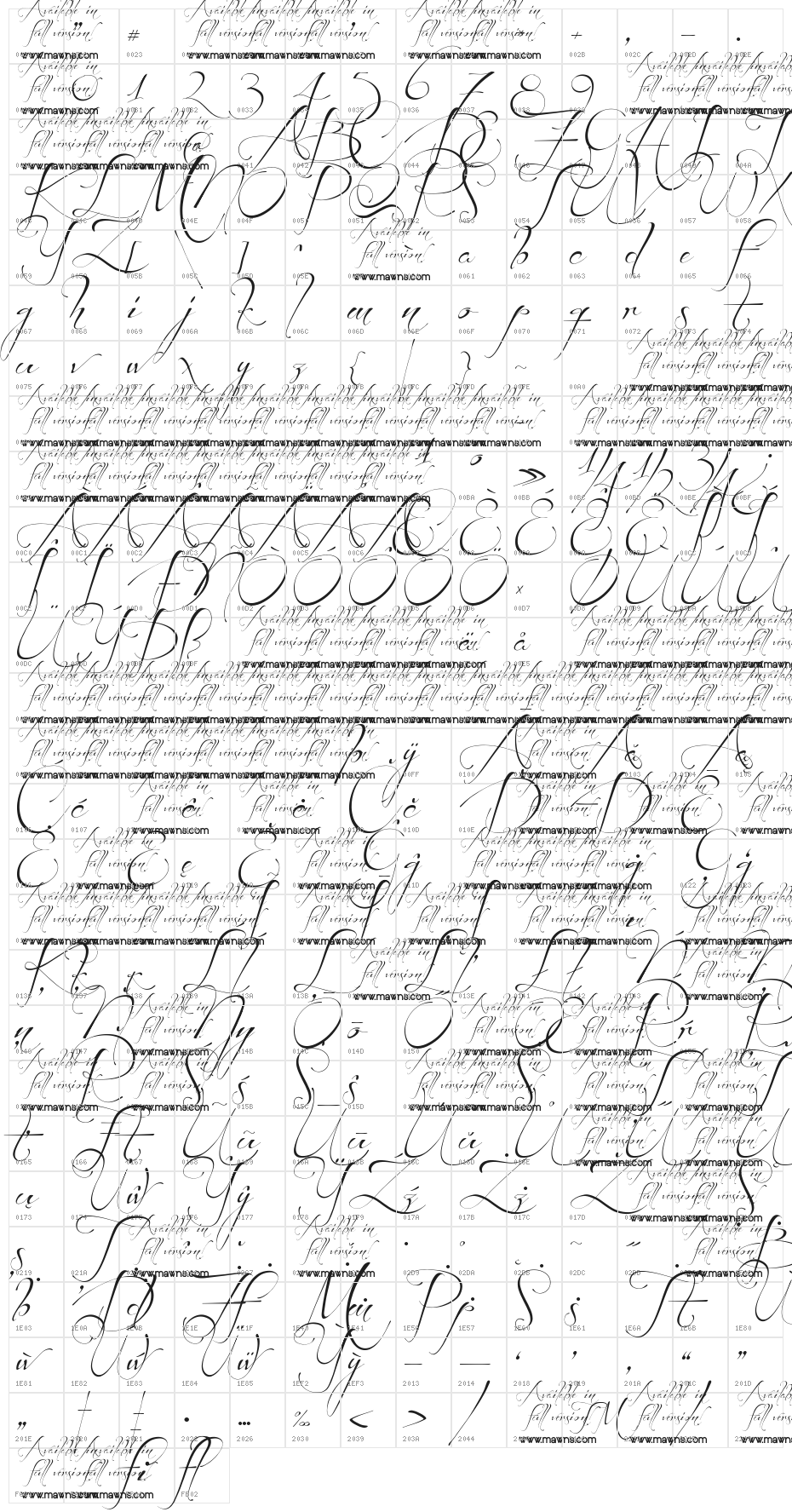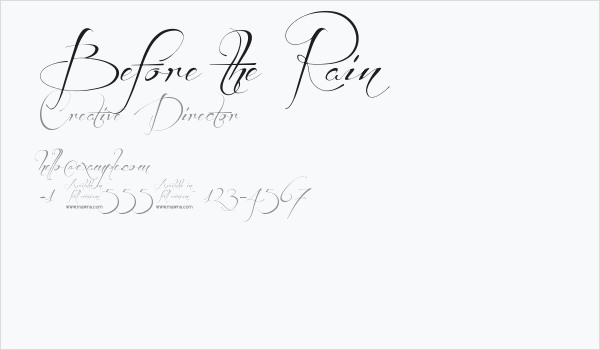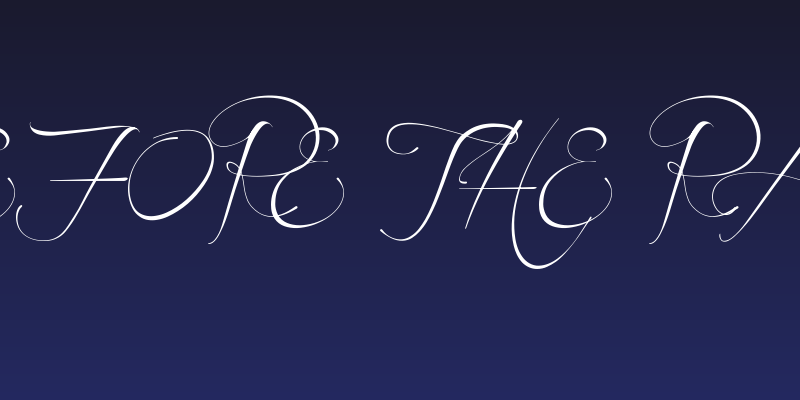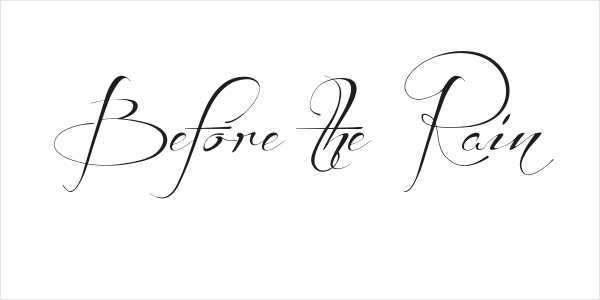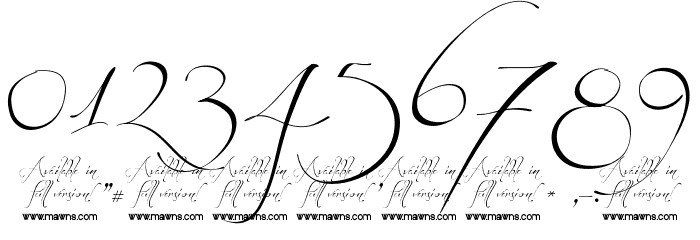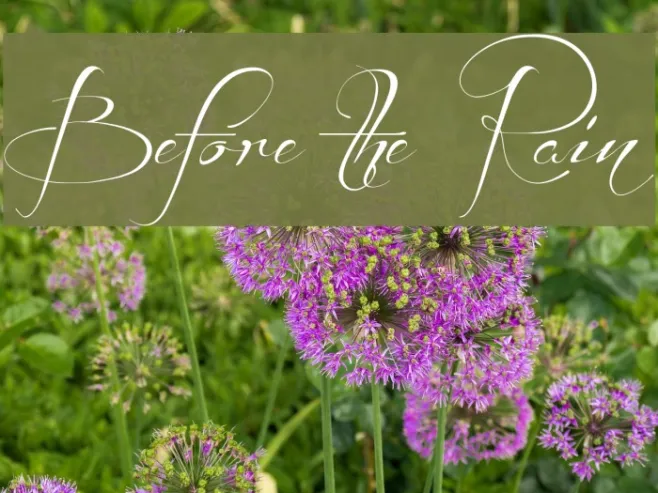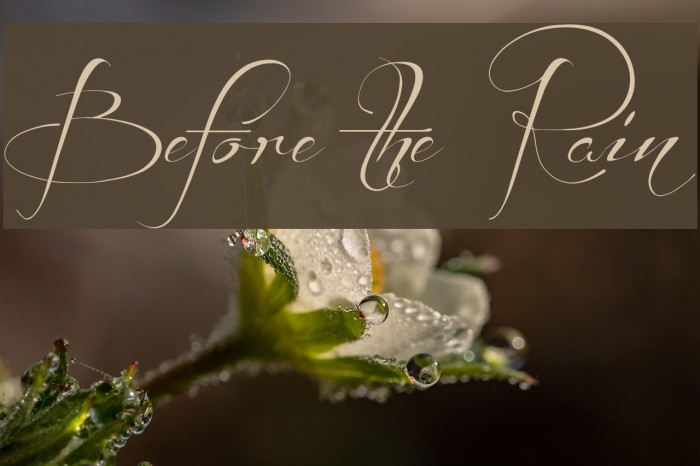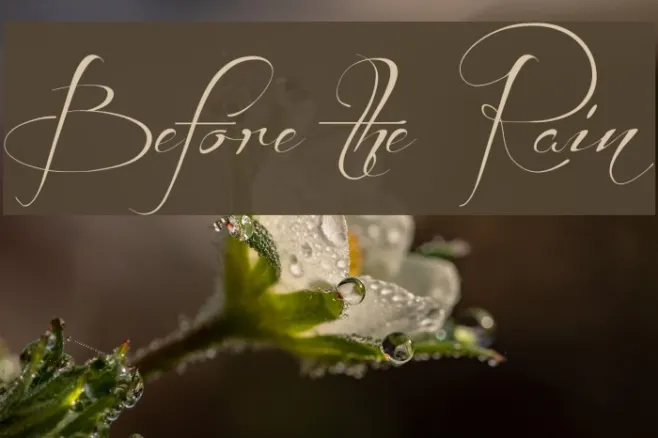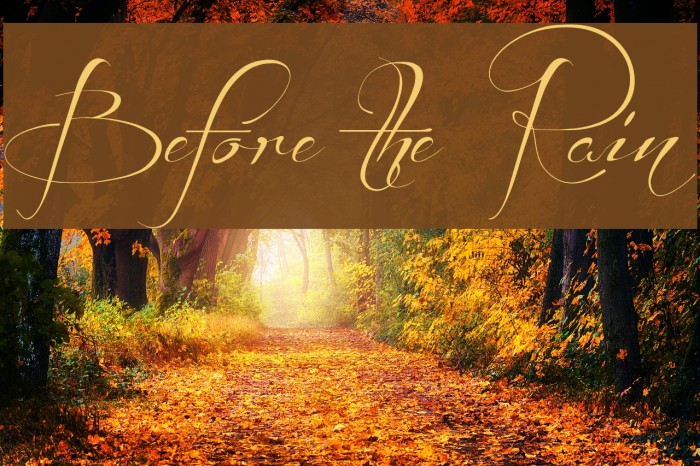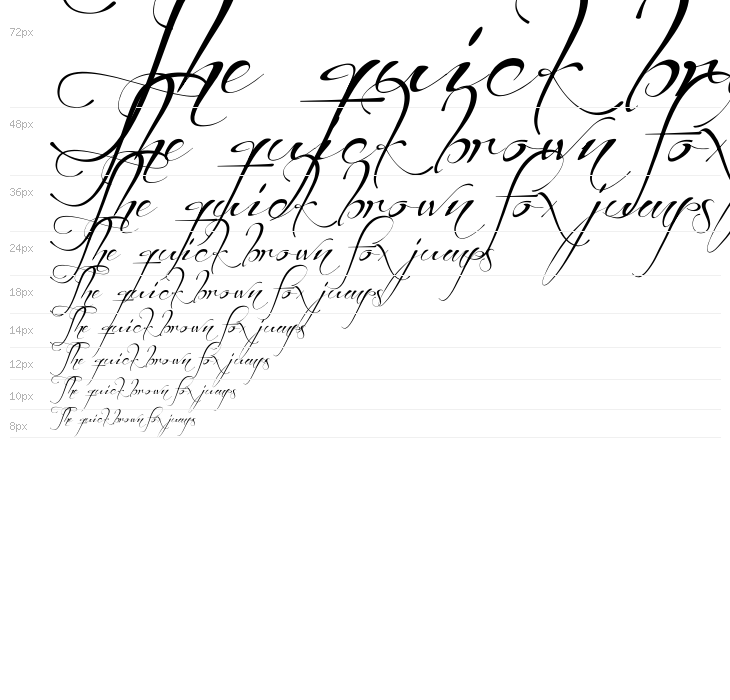
Before the Rain Font
Before the Rain Description
This elegant script font features a flowing, cursive style with delicate, sweeping strokes that convey a sense of grace and sophistication. The uppercase letters are characterized by their tall, slender forms and intricate loops, while the lowercase letters maintain a consistent fluidity, enhancing the font's overall harmony. The numerals are designed with a similar elegance, featuring gentle curves and a refined appearance. Special characters are seamlessly integrated, maintaining the font's cohesive aesthetic. This font's delicate lines and artistic flair make it ideal for projects that require a touch of elegance and refinement.